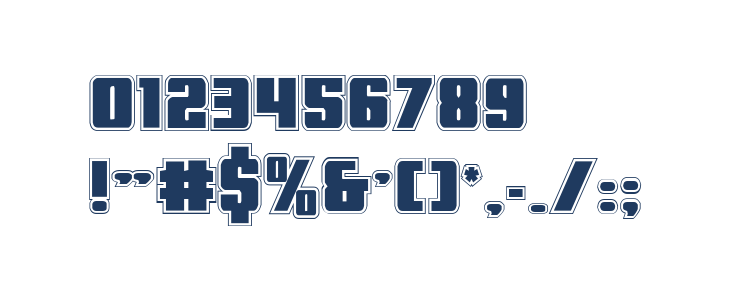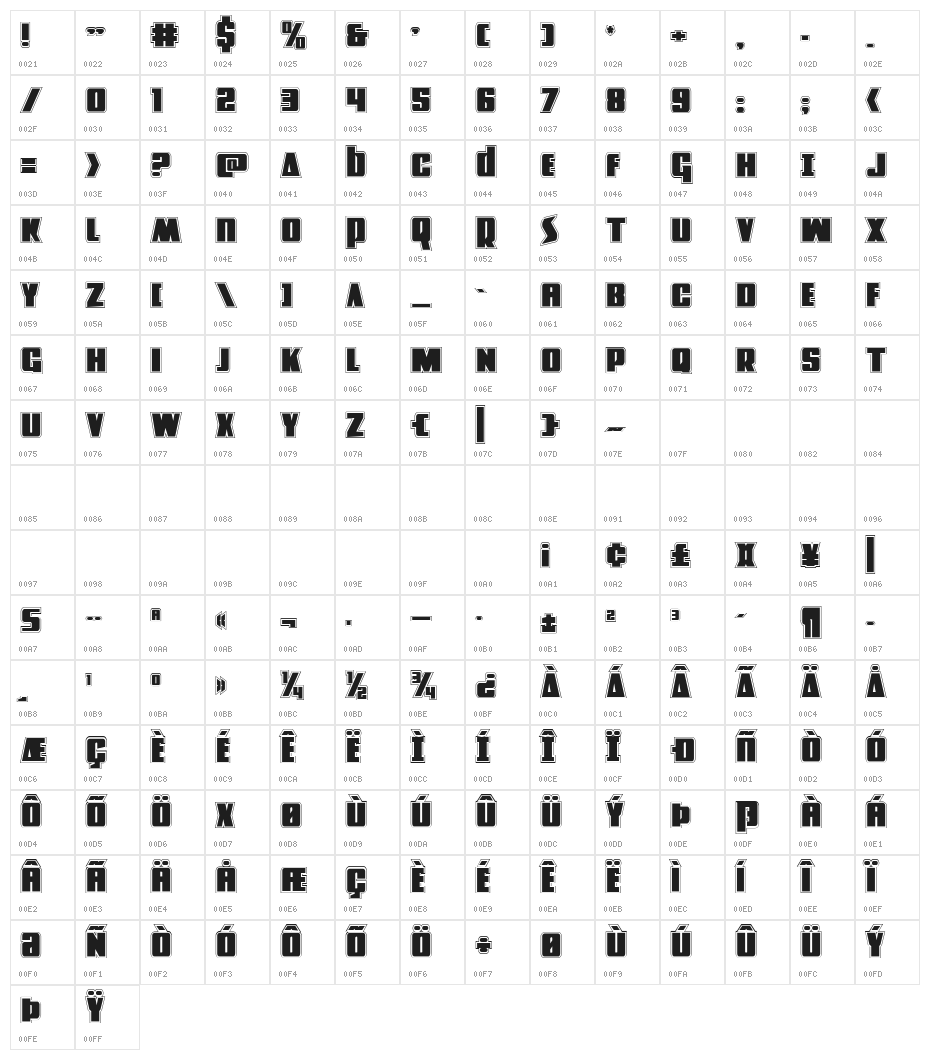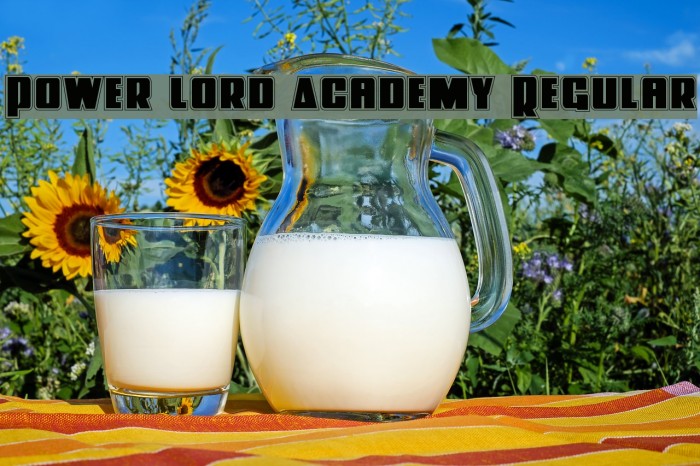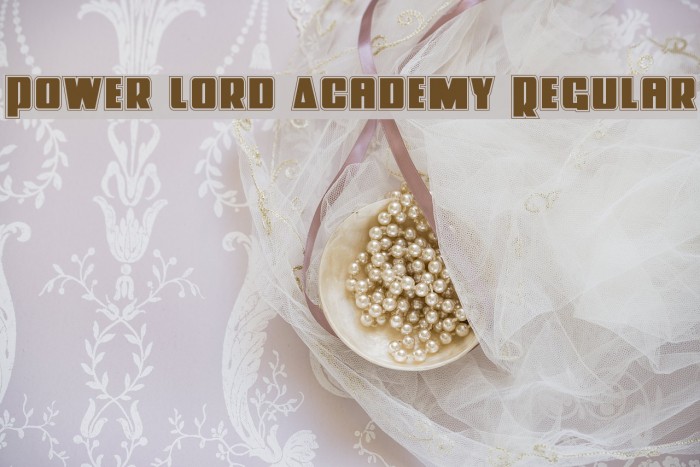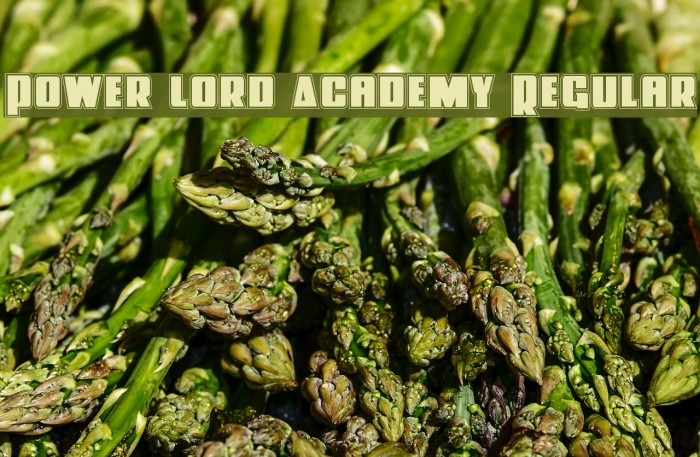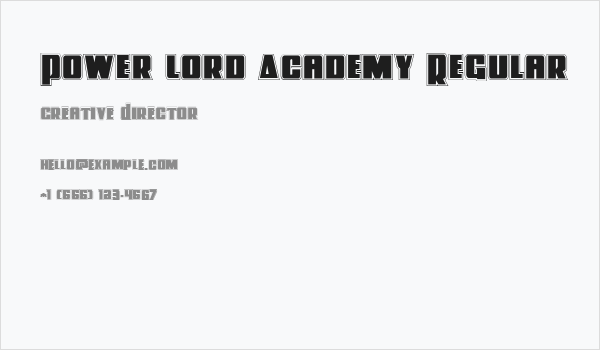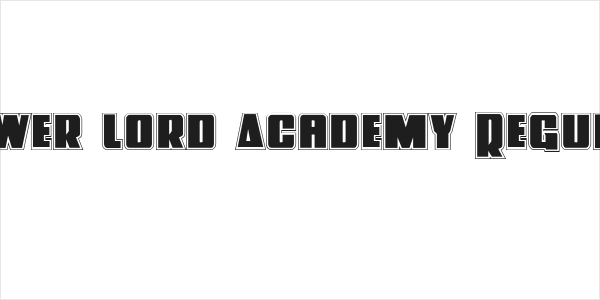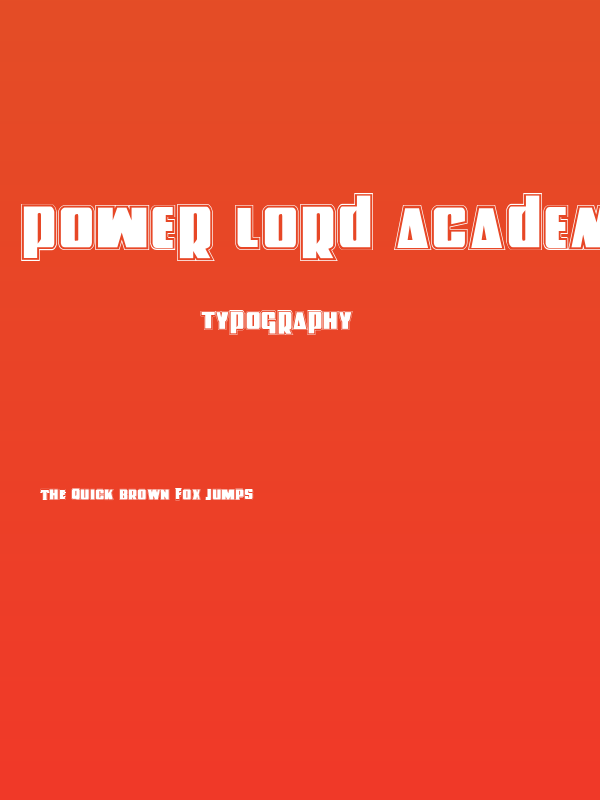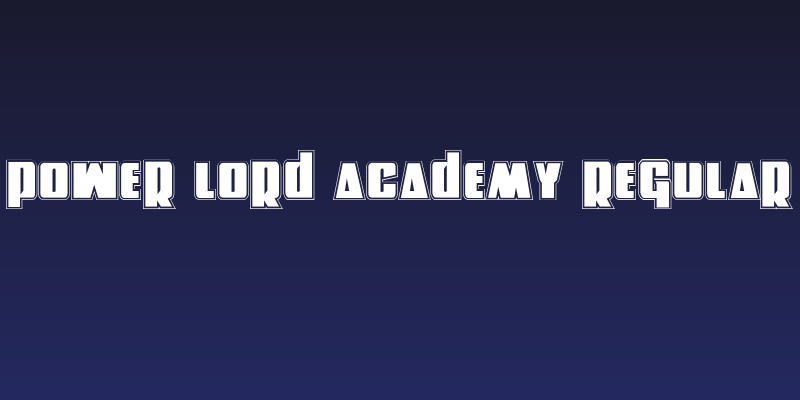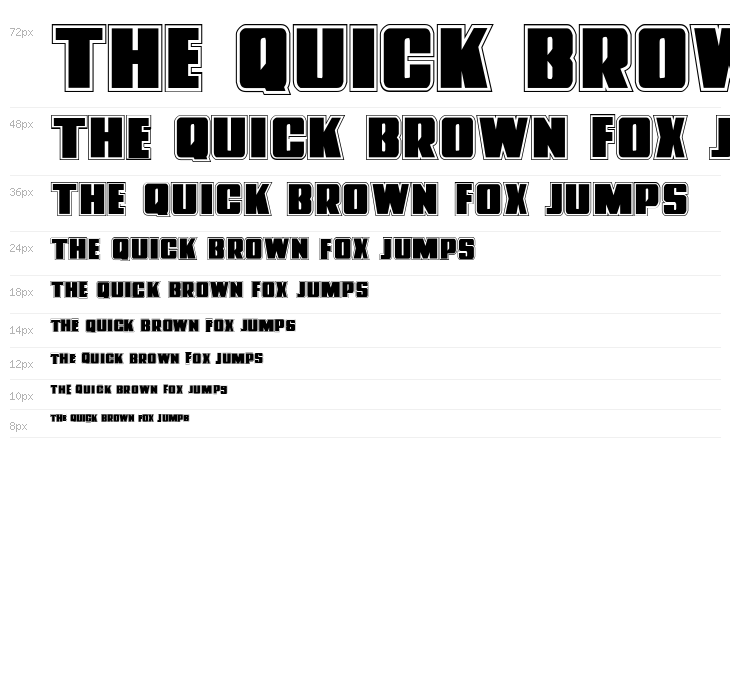
Power Lord Academy Regular Font
Power Lord Academy Regular Description
This font features a bold, impactful style with a strong presence. The characters are designed with a thick outline and a solid fill, creating a striking contrast that enhances readability. The angular and geometric shapes of the letters give it a modern and edgy appearance. The uppercase and lowercase letters maintain a consistent style, while the numbers and special characters complement the overall design. This font is ideal for projects that require a bold statement, such as posters, headlines, and branding materials.